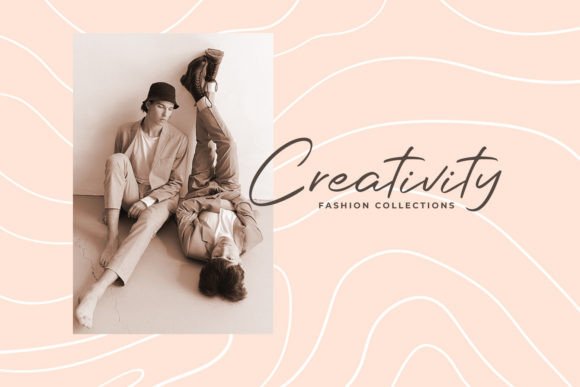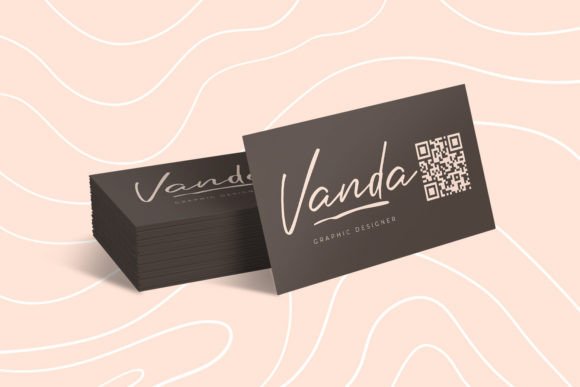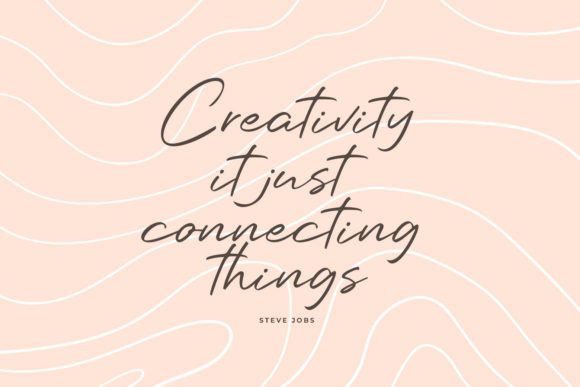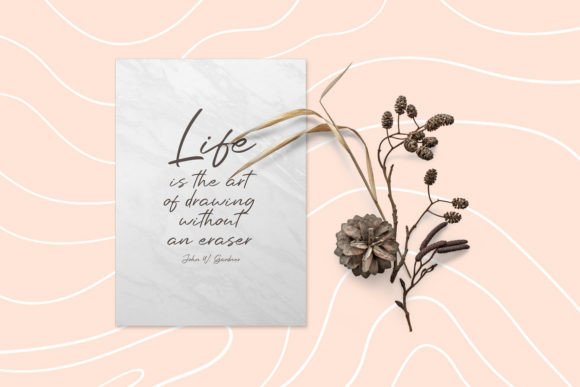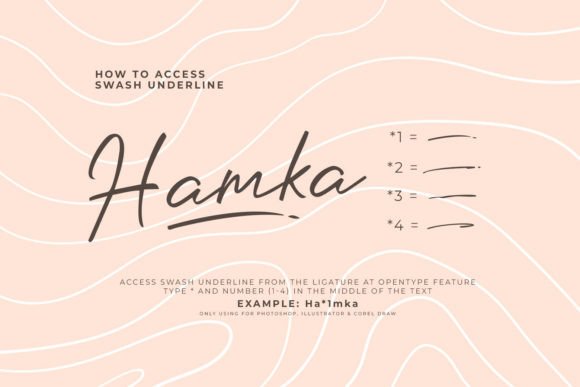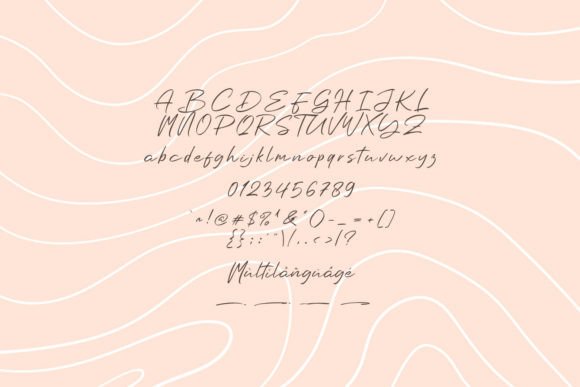
Unleash Your Creativity with the Beauty Wind Font
Enter the Beauty Wind Font, a stunning script font that’s sure to take your designs to the next level. With its clean, stylish, and modern aesthetic, this font is perfect for posters, logos, magazines, book covers, banners, and more. Whether you’re a seasoned designer or just starting out, the Beauty Wind Font is an invaluable addition to your creative toolkit, helping you craft beautiful designs that truly stand out.
- Font Family: Beauty Wind Font is a beautiful and elegant script font, perfect for creating a romantic and whimsical atmosphere.
- Unique Characteristics: The font features beautiful, flowing lines and intricate details, making it perfect for creating a sense of elegance and sophistication.
Beauty Wind Font Review
At first glance, Beauty Wind Font seems like a beautiful addition to any design project. ✨ Its elegant, flowing script makes it perfect for adding a touch of sophistication to titles, headings, and even body text. The font’s versatility is one of its strongest assets, making it suitable for a wide range of applications, from fashion and beauty to luxury and high-end brands.
One of the things that sets Beauty Wind Font apart is its unique blend of traditional and modern elements. ✨ The font’s intricate details and flourishes evoke a sense of history and craftsmanship, while its clean lines and subtle curves give it a fresh, contemporary feel.
However, there are some limitations to consider. ⚠️ For one, the font may be too ornate for some designs, particularly those that require a more minimalist approach. Additionally, the font’s complexity may make it difficult to use at small font sizes, which could impact readability.
Here are some of the font’s key features:
- Elegant, flowing script with intricate details and flourishes
- Versatile and suitable for a wide range of applications
- Unique blend of traditional and modern elements
- May be too ornate for some designs
- Can be difficult to use at small font sizes
Overall, Beauty Wind Font is a beautiful and versatile font that is sure to add a touch of elegance to any design project. With its unique blend of traditional and modern elements, it’s a great choice for designers looking to add some sophistication to their work.
The Beauty Wind Font is ideal for:
- Designing quotes and inspirational graphics.
- Creating digital products and print materials.
Comparison: While Beauty Wind Font is more delicate and whimsical, Great Vibes Font is more dramatic and luxurious. Great Vibes Font has a stronger emphasis on vertical strokes, giving it a more refined and elegant feel.